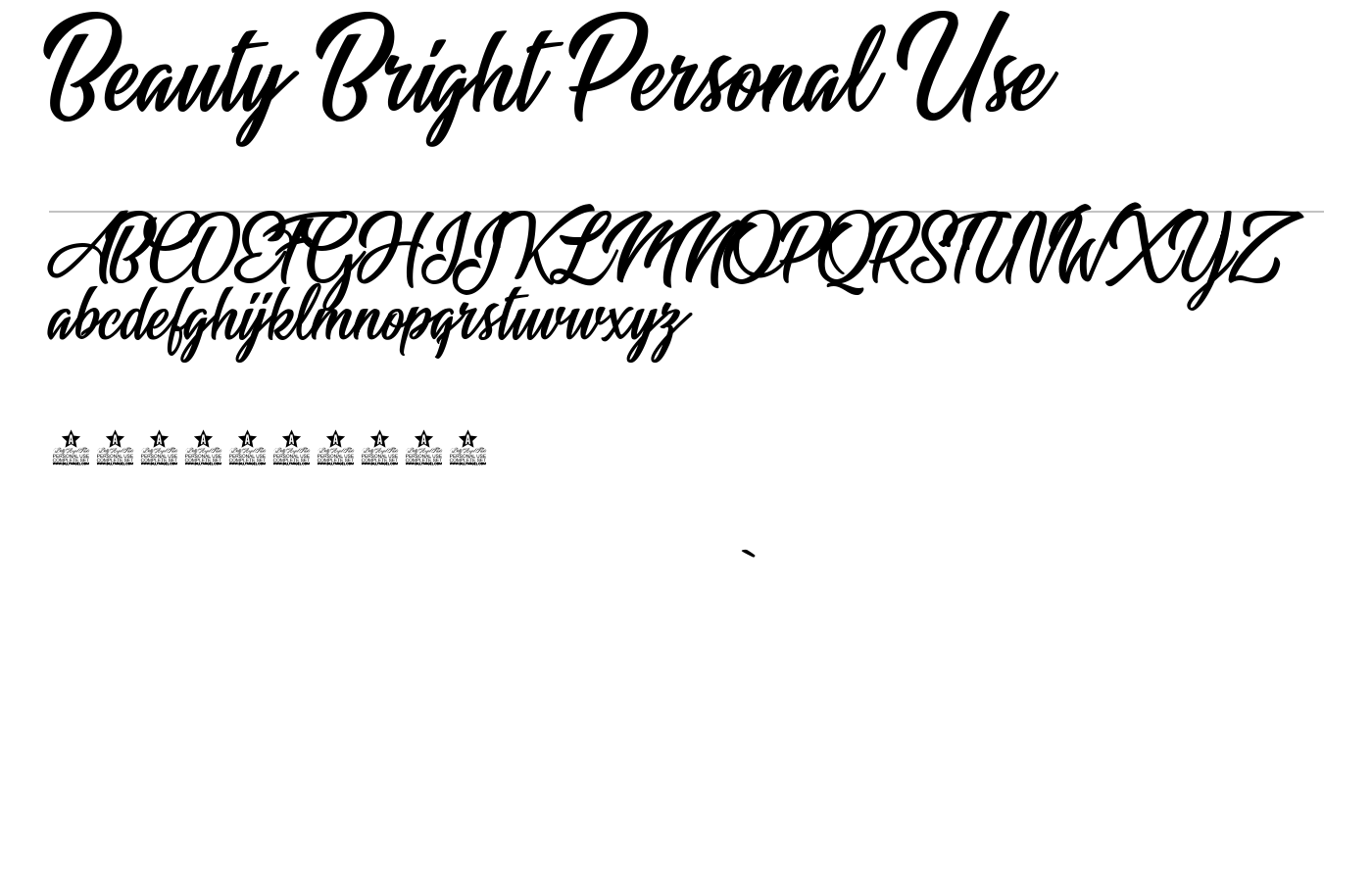
Beauty Bright Personal Use is a stylish script font that combines elegant, flowing strokes with a bold weight, making it both eye-catching and easy to read. Its smooth, cursive letterforms evoke a sense of sophistication and charm, perfect for branding, invitations, and creative projects needing a personal, refined touch. This font shines in headlines and logos where a modern, graceful feel is desired.
Beauty Bright Personal Use Font
About Beauty Bright Personal Use Font
| Font family | Beauty Bright Personal Use Font |